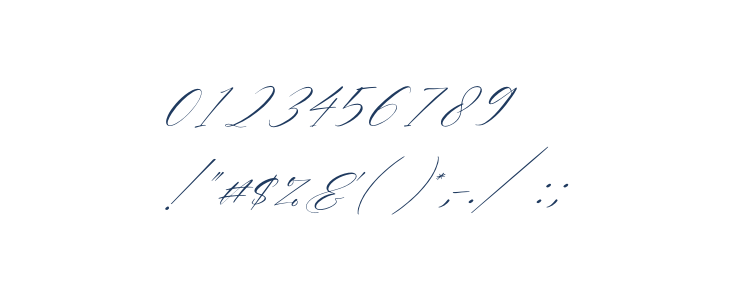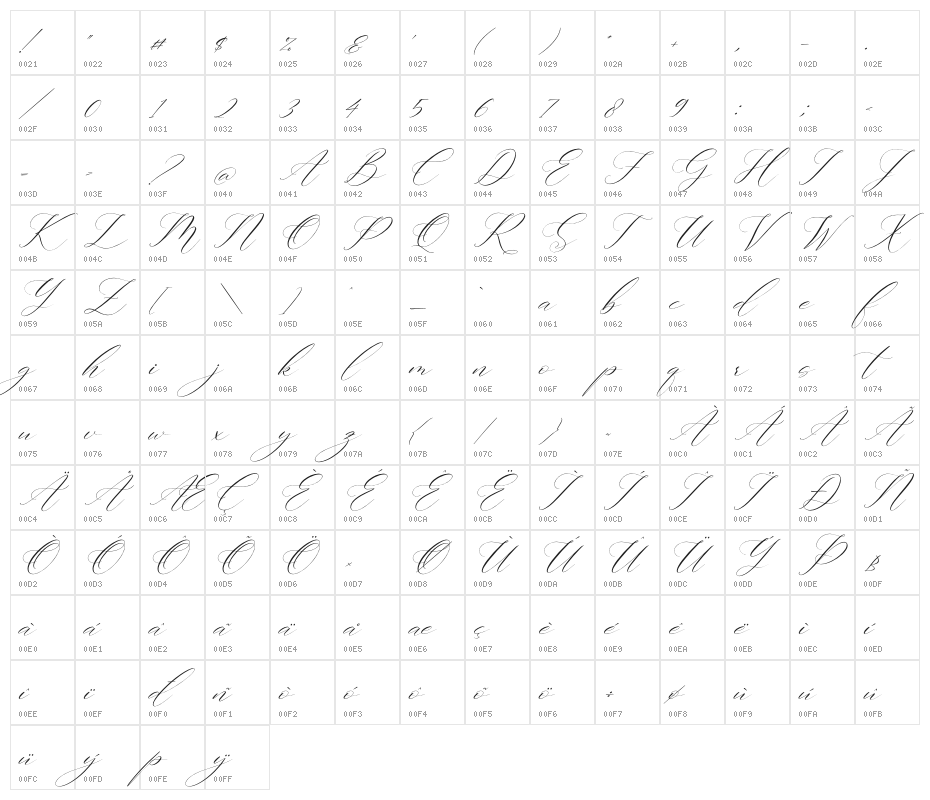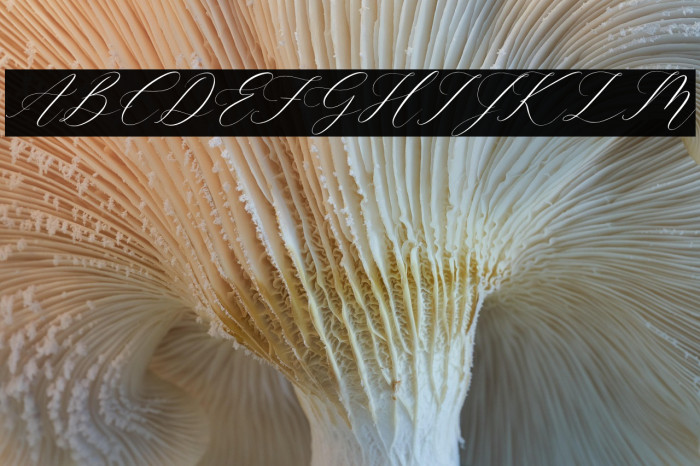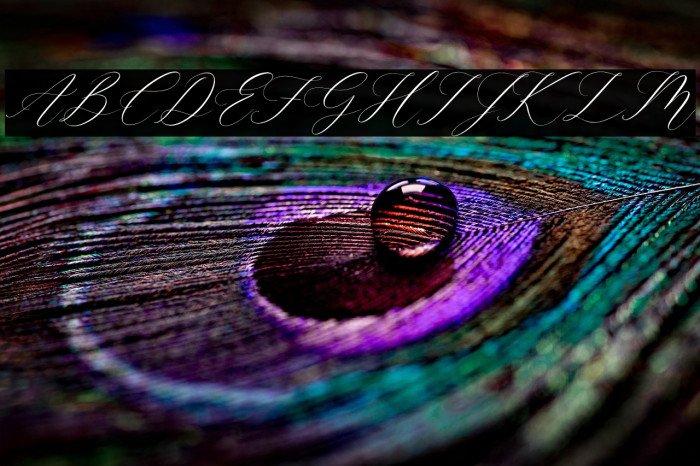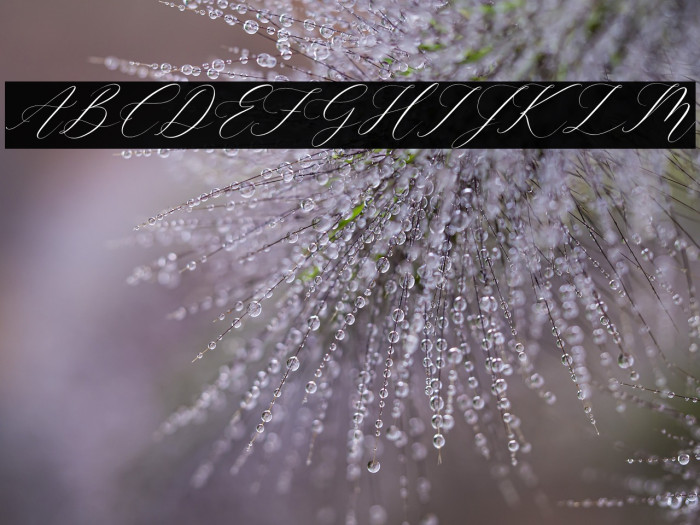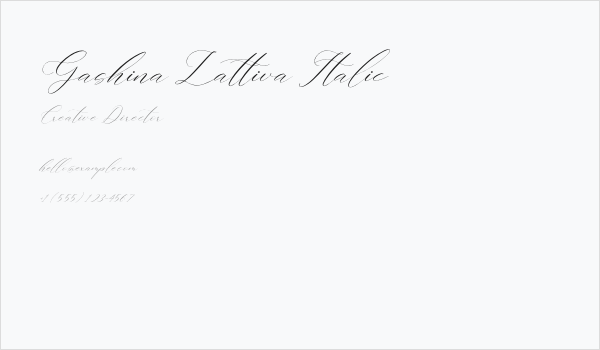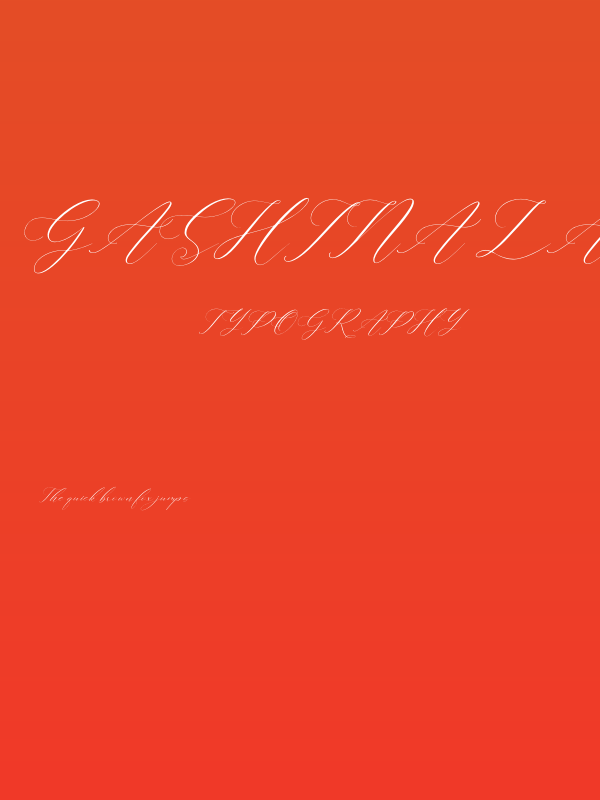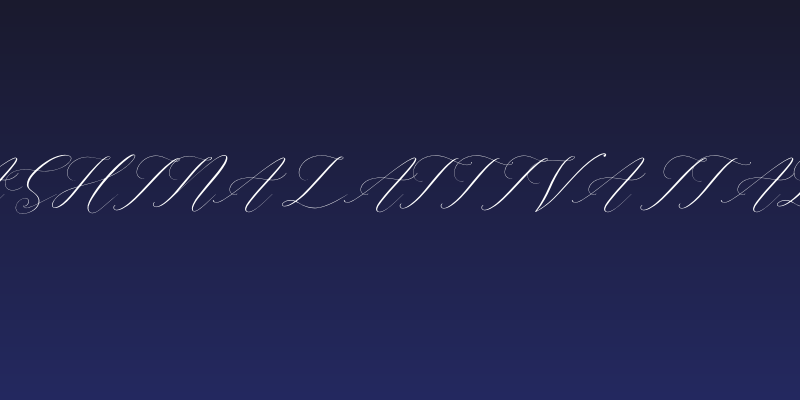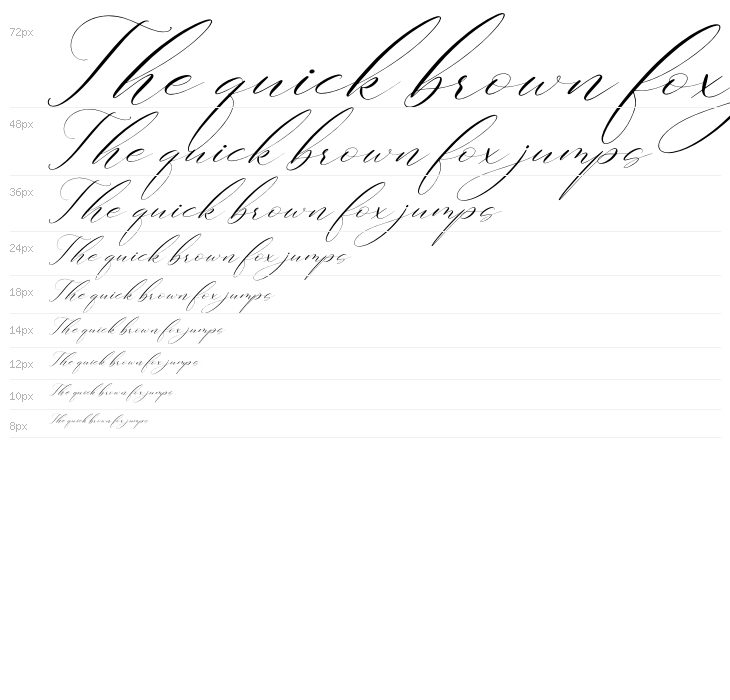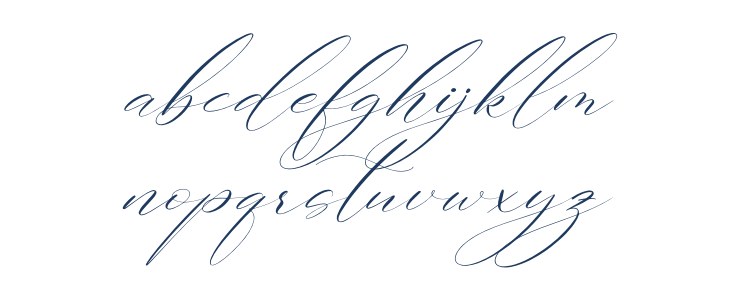
Gashina Lattiva Italic Font
Gashina Lattiva Italic Description
This elegant and sophisticated font features a flowing, cursive style with intricate loops and swashes that give it a luxurious feel. The letters are gracefully connected, creating a seamless script that is both artistic and readable. The uppercase letters are ornate, with elaborate flourishes that add a touch of grandeur, while the lowercase letters maintain a consistent rhythm and flow. The numerals and special characters are designed to match the overall aesthetic, ensuring a cohesive look across all text elements. This font exudes a sense of refinement and elegance, making it ideal for projects that require a touch of class and sophistication.
Overall StyleElegant
Use CaseLogos, Invitations, Branding
Proposed ProjectsIdeal for wedding invitations, luxury branding, elegant stationery, and high-end product packaging.